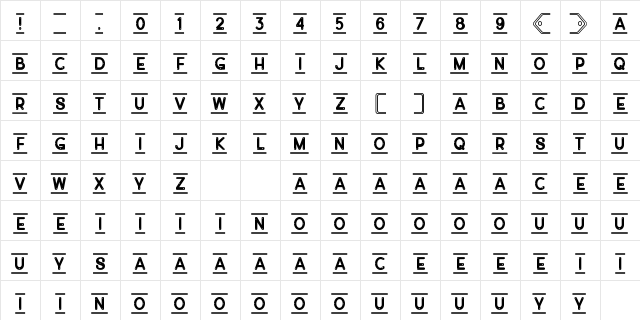
Montecarlito Regular Free Font
Montecarlito Regular
Foundry: Kotak Kuning Studio
Design Context for Montecarlito
Montecarlito is a composed and adaptable typeface that performs quietly and consistently across a wide range of design contexts.